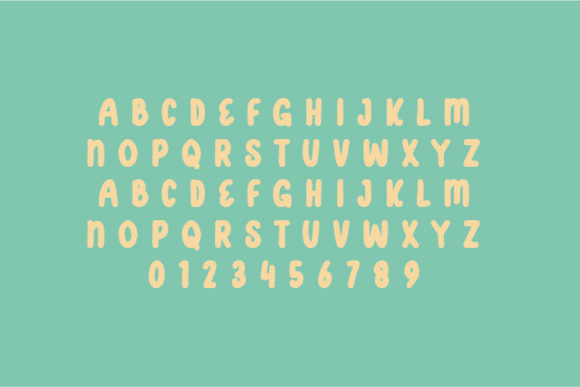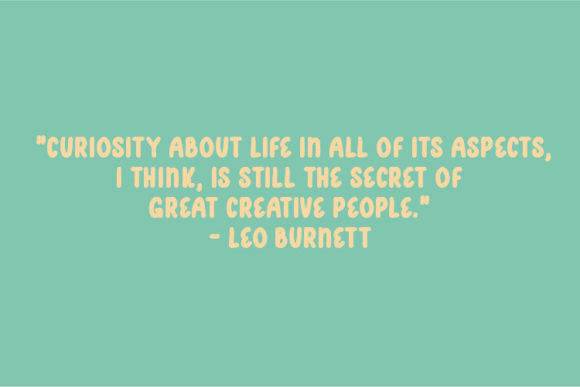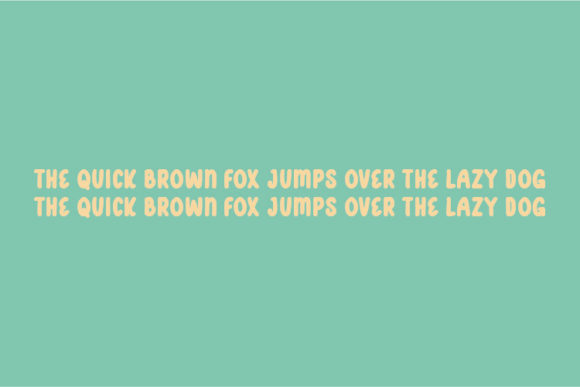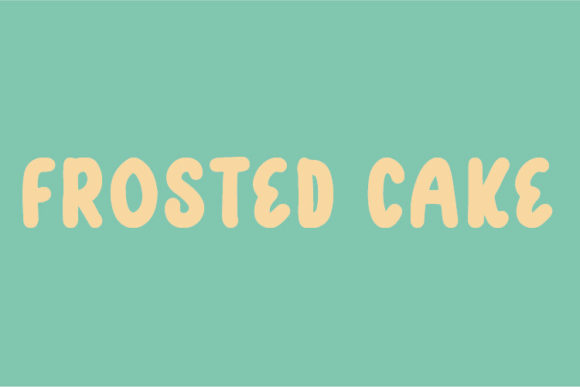
Frosted Cake Font: Elevate Your Designs with a Clean and Adaptable Display Font
Are you a designer or crafter looking for a font that can add a touch of elegance and sophistication to your projects? Look no further than the Frosted Cake Font. This clean and adaptable display font is perfect for creating stunning posters, flyers, and prints that will capture the attention of your audience. In this article, we’ll explore the features and benefits of the Frosted Cake Font and how you can use it to take your designs to the next level.
What is Frosted Cake Font?
Frosted Cake Font is a modern display font that is designed to be clean, elegant, and highly versatile. Its sleek lines and curves make it perfect for use in a wide range of design projects, from posters and flyers to logos and branding materials. The font is highly legible, even at large sizes, making it ideal for headlines and titles.
Key Features of Frosted Cake Font
- Clean and Adaptable: The Frosted Cake Font is designed to be highly adaptable, making it perfect for use in a wide range of design projects. Its clean lines and curves ensure that it will look great in any context.
- Highly Legible: The font is highly legible, even at large sizes, making it ideal for headlines and titles.
- Elegant and Sophisticated: The Frosted Cake Font has an elegant and sophisticated feel that will add a touch of luxury to your designs.
Benefits of Using Frosted Cake Font
There are many benefits to using the Frosted Cake Font in your designs. Here are just a few:
- Instant Professionalism: The Frosted Cake Font has a professional and polished feel that will instantly elevate your designs.
- Endless Possibilities: The font is highly versatile and can be used in a wide range of design projects, from posters and flyers to logos and branding materials.
- Easy to Read: The font is highly legible, making it easy for your audience to read and understand your message.
- Unique and Creative: The Frosted Cake Font has a unique and creative feel that will help your designs stand out from the crowd.
How to Use Frosted Cake Font in Your Designs
Using the Frosted Cake Font in your designs is easy. Here are a few tips to get you started:
- Pair it with Other Fonts: The Frosted Cake Font can be paired with other fonts to create a unique and creative look.
- Experiment with Colors: The font looks great in a wide range of colors, so don’t be afraid to experiment and find the perfect color for your design.
- Use it for Headlines and Titles: The Frosted Cake Font is ideal for use in headlines and titles, where its elegant and sophisticated feel can really shine.
In conclusion, the Frosted Cake Font is a clean and adaptable display font that is perfect for designers and crafters looking to add a touch of elegance and sophistication to their projects. With its highly legible design, elegant feel, and endless possibilities, this font is sure to become a staple in your design toolkit. So why wait? Download the Frosted Cake Font today and start creating stunning designs that will capture the attention of your audience.
Whether you’re creating posters, flyers, or prints, the Frosted Cake Font is the perfect choice. Its clean lines and curves ensure that it will look great in any context, and its highly legible design makes it easy for your audience to read and understand your message. So why not give it a try and see the difference it can make in your designs?
With the Frosted Cake Font, you can:
- Create stunning posters and flyers that will capture the attention of your audience
- Add a touch of elegance and sophistication to your designs
- Experiment with different colors and font pairings to create a unique look
- Take your designs to the next level with a professional and polished font